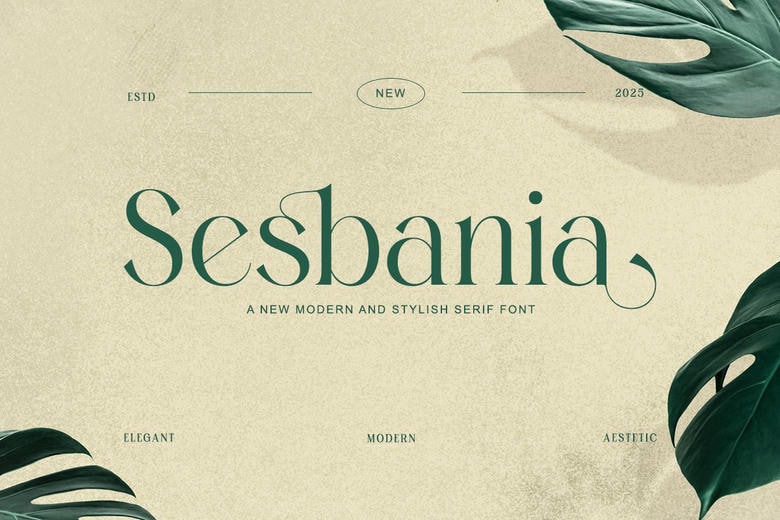
Sesbania Font
Sesbania Font is a contemporary minimal serif typeface with embryonic elegance and natural sophistication. It has the clean shapes and elegant ligatures, which make it perfect in branding, packaging, magazines, and designing of products. Catering to designers who value organic design, Sesbania takes each design to serene style.
Sesbania Serif Font